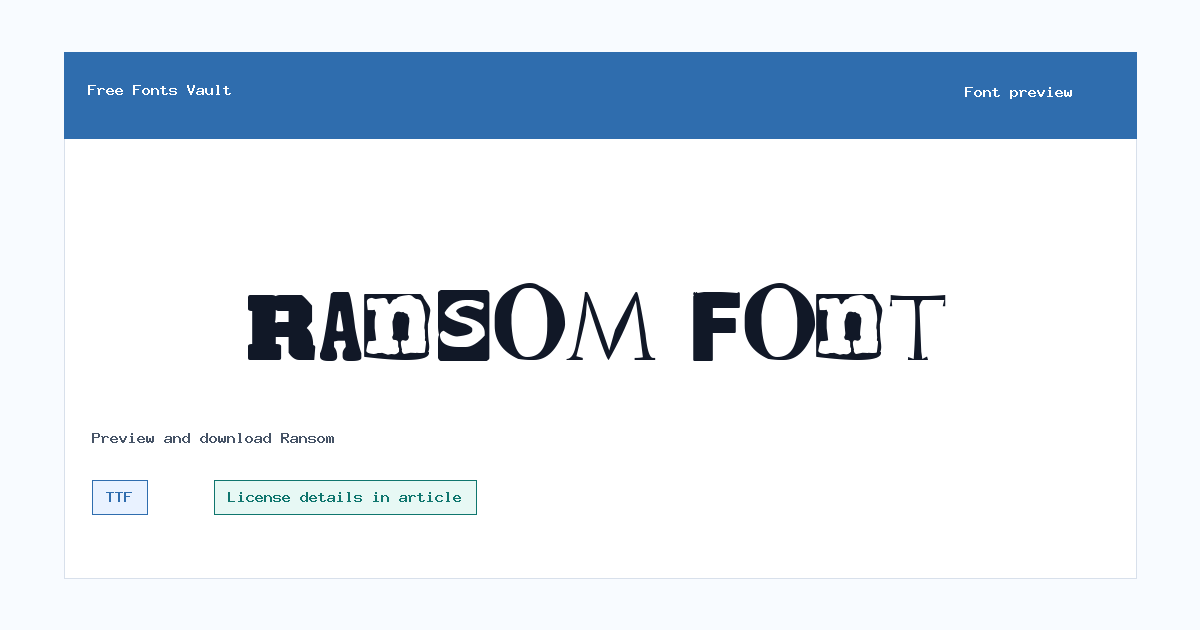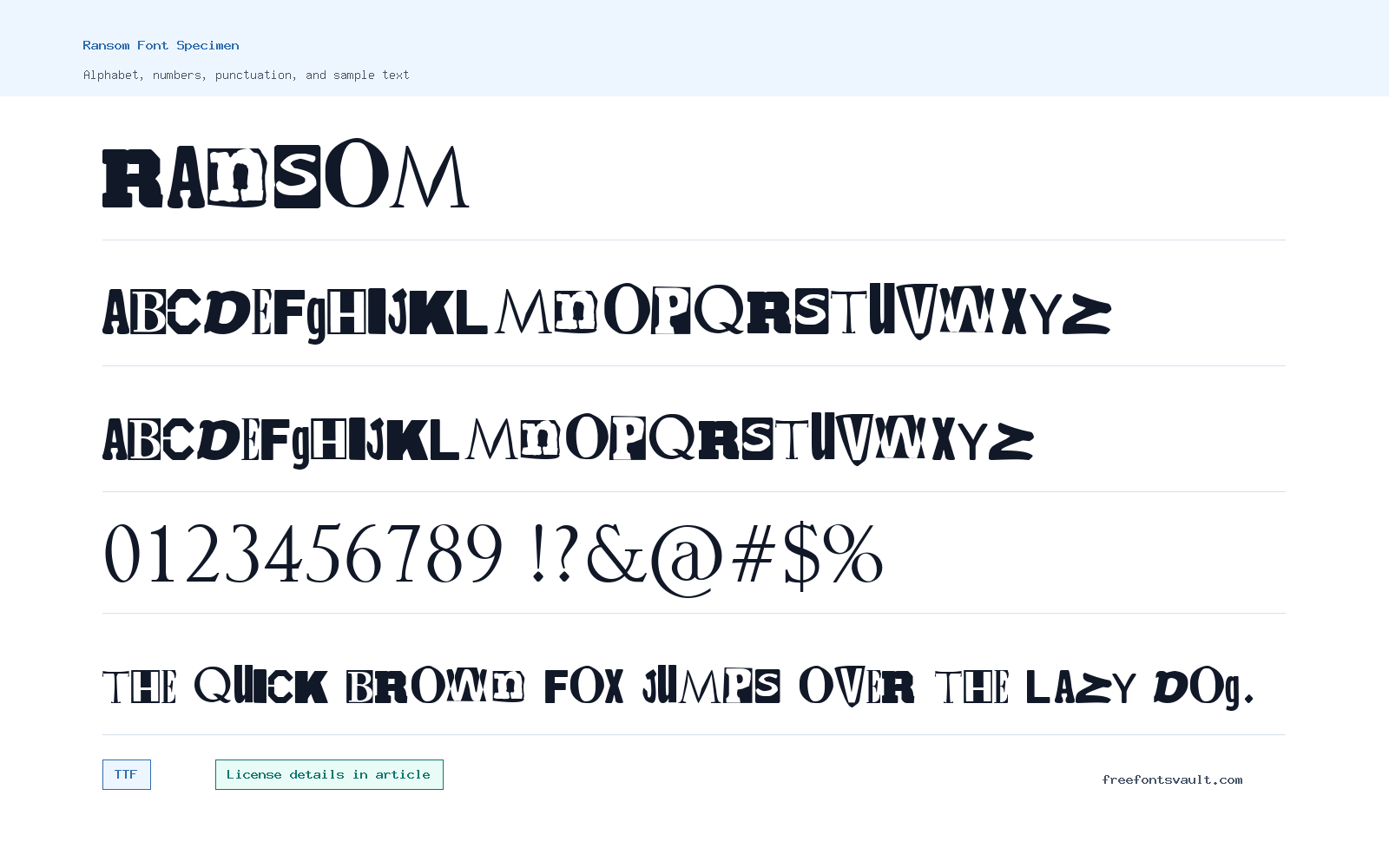
Ransom
Ransom is a single-style font download for visitors who want to test a bold display idea in the preview before using it in a design.
About Ransom Font
Use Ransom for short text first: a title, poster word, social graphic, label, or decorative heading. Avoid relying on it for long paragraphs until you test a full sentence, punctuation, numbers, and mixed uppercase and lowercase text. If the design feels too strong beside body copy, pair it with a plain sans serif or serif font that stays quiet and readable.
Ransom is easiest to use when the design calls for a rough, expressive, or handmade display mood. Keep the copy short and let the irregular rhythm do the visual work. It can be useful for posters, zines, music artwork, Halloween-style graphics, mystery themes, or social posts that need a deliberately imperfect title treatment.
Before using Ransom in a finished layout, test the exact words you plan to publish. Some letter combinations may feel much louder than others, so a small spacing adjustment can make the difference between energetic and hard to read. Use a plain companion font for dates, descriptions, prices, buttons, and any text that people need to scan quickly.
- Short titles and display text
- Posters, labels, social graphics, and preview experiments
What is Ransom best used for?
Use it for short display text such as titles, posters, labels, and social graphics. Test readability before using it for longer text.